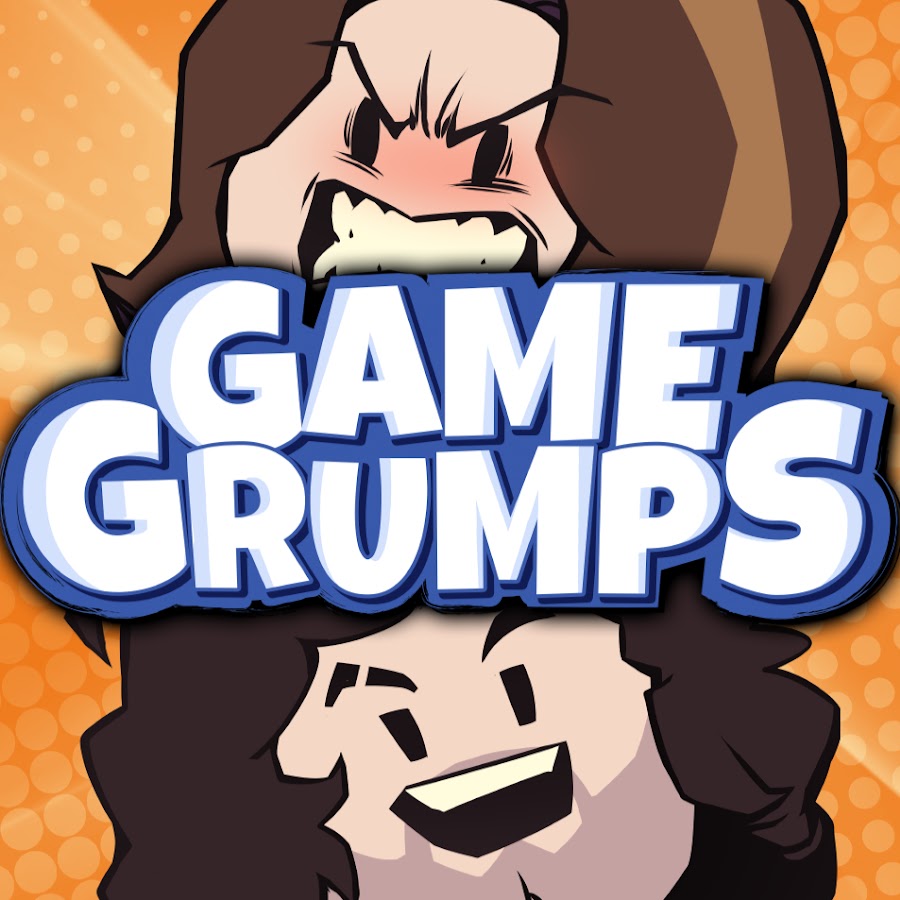
Game Grumps Font
The logo displayed above utilizes the free font, Luckiest Guy, created by Astigmagic. It is a bold and friendly font, reminiscent of hand-lettered 1950s advertisements. You can download this font for free from the Fonts Used Section.